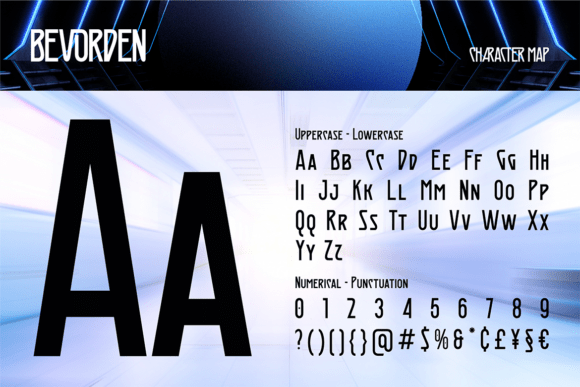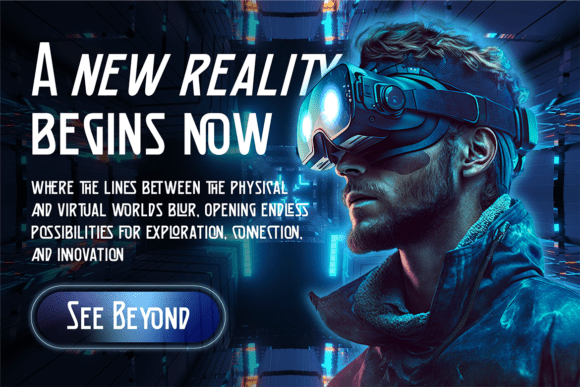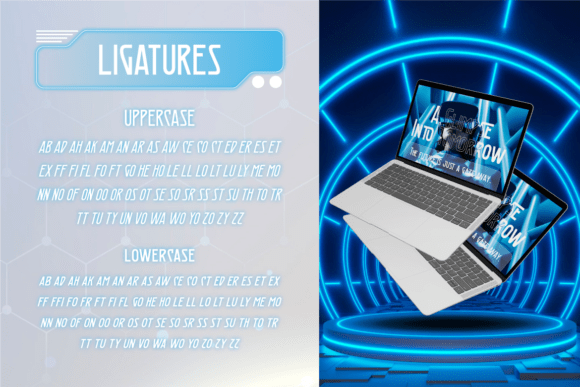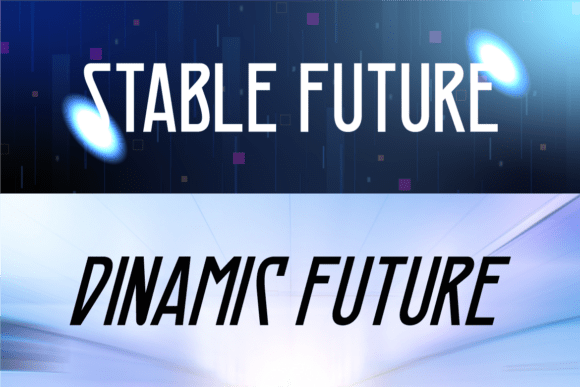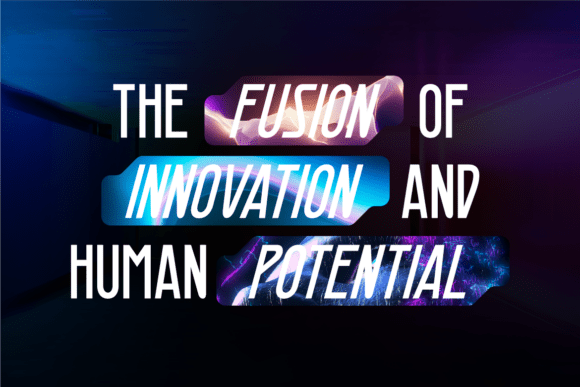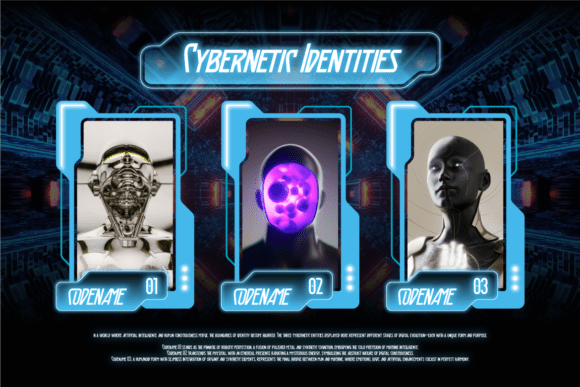
Unlock the Future of Design with Bevorden Font
Imagine you’re a concept artist working on a sci-fi movie poster, and you need a font that screams ‘futuristic.’ The clock is ticking, and you’re stuck on a bland, generic font that’s holding back your creativity. Suddenly, a spark of inspiration hits you – a bold, cutting-edge font that embodies the essence of innovation and progress. This is where the Bevorden Font comes in, a game-changing display font designed to transport your audience to a world of limitless possibilities.
Bevorden Font is more than just a font – it’s a statement piece that brings a strong digital-age energy to your design. With its sleek, techy personality and geometric style, it’s perfect for virtual reality, sci-fi themes, and future-tech concepts. Whether you’re a designer, artist, or entrepreneur, Bevorden Font is your key to unlocking a world of creative possibilities.
- Font Family: Bevorden Font is a sans-serif font family designed by Typodermic Fonts.
- Unique Characteristics: The font family features clean lines, geometric shapes, and a minimalist design aesthetic, making it ideal for modern and corporate designs.
Bevorden Font Review
When I first stumbled upon the Bevorden font, I was immediately drawn in by its elegant and refined aesthetic. ✨ The subtle curves and gentle lines give it a sophisticated feel that would be perfect for high-end branding or luxury packaging. The font’s versatility also makes it suitable for a wide range of applications, from magazine titles to restaurant menus.
One of the standout features of Bevorden is its excellent legibility. ✨ Whether you’re reading a short sentence or a lengthy paragraph, the font’s clear and precise letters ensure that the text remains easy to read. Additionally, the font’s x-height is well-balanced, making it suitable for both body text and headings.
- ⚠️ Limited character set: Bevorden is a relatively new font, and as such, it may not have a comprehensive character set that includes all the necessary accents and symbols.
- ⚠️ Not ideal for small text: While Bevorden is highly legible, its large x-height can make it appear somewhat chunky when used for small text. This may not be suitable for applications where text needs to be condensed.
Overall, Bevorden is a beautiful and versatile font that excels in elegance and sophistication. While it may have some limitations, its strengths far outweigh its weaknesses. If you’re looking for a font that can elevate your brand or design, Bevorden is definitely worth considering.
Tips for Getting the Most Out of Bevorden Font
To get the most out of the Bevorden Font, use it for titles, headings, and emphasis. It pairs well with modern and minimalist designs. You can also experiment with different font sizes and colors to create a unique look.
The Bevorden Font is commonly used for:
– Titles and headings
– Logos and branding
– Business cards and resumes
– Social media graphics and advertising